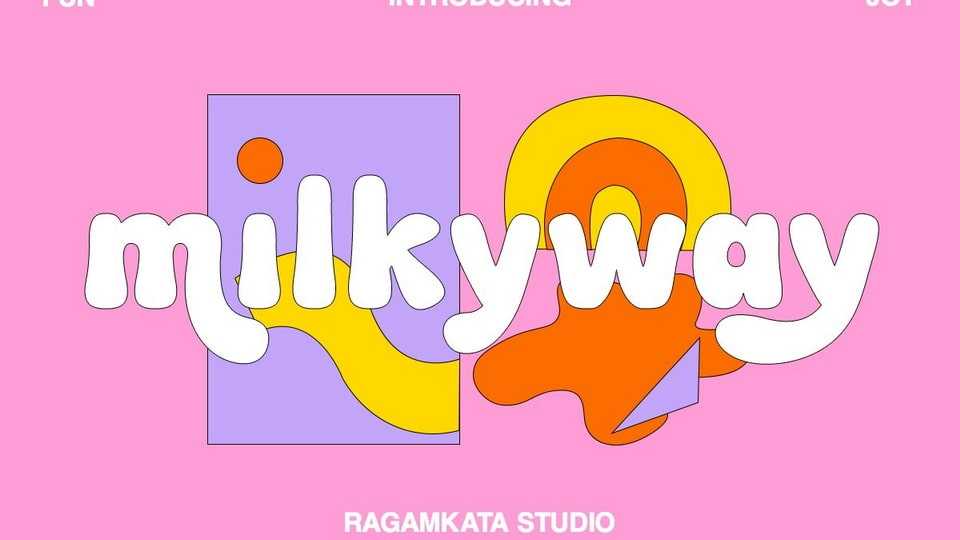
Download Milkyway font,, a bubbly-bold typeface that perfect for making your project looks even more fun! It’s rounded and curvy shape makes it more unique.